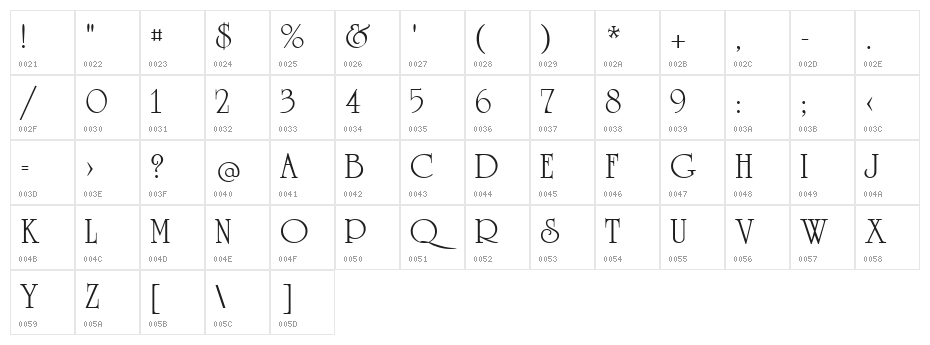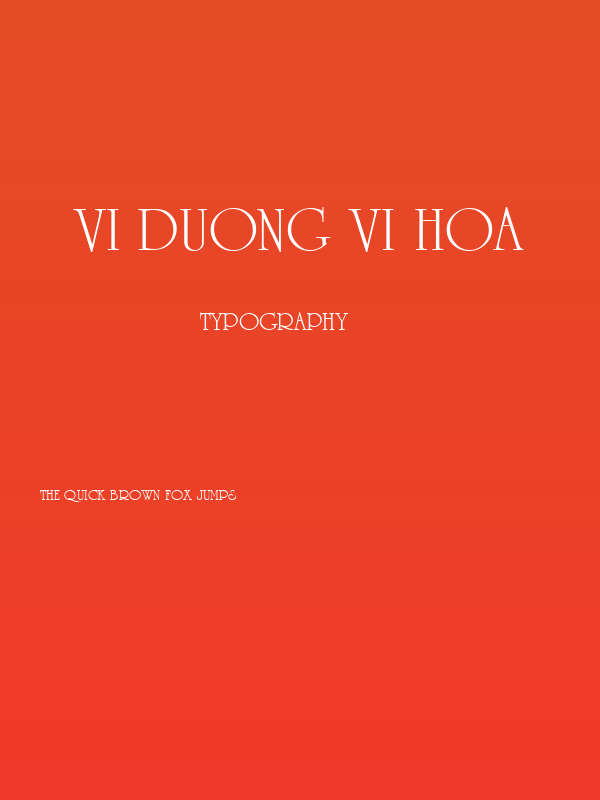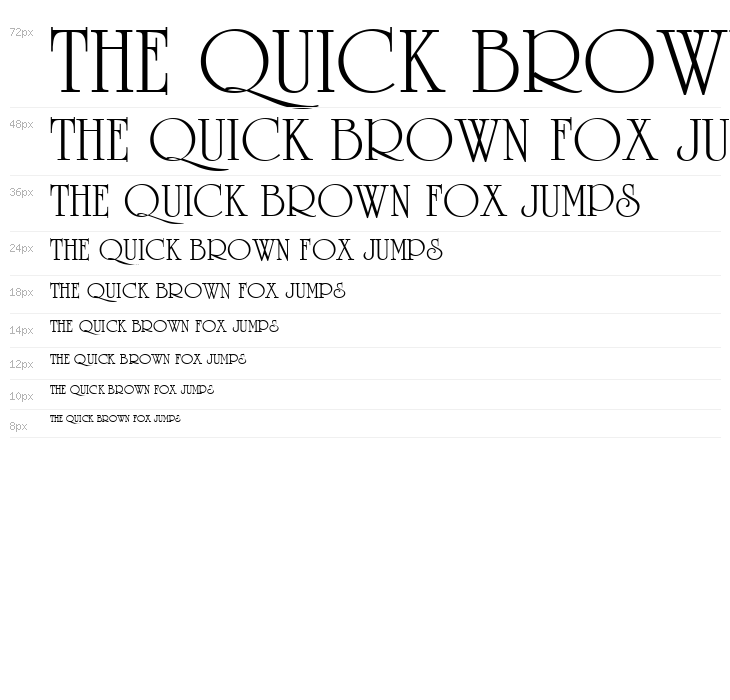
VI Duong Vi Hoa Font
VI Duong Vi Hoa Description
This font features a classic serif style with elegant, sweeping curves and a refined appearance. The uppercase letters are characterized by their tall, slender forms and distinctive serifs, which add a touch of sophistication. The lowercase letters maintain a consistent style, with smooth transitions and a balanced structure. The numerals are well-proportioned, complementing the overall aesthetic. Special characters are thoughtfully designed, enhancing the font's versatility. The font's graceful lines and subtle details make it suitable for a variety of applications, from formal invitations to editorial design.
| Proposed Projects | Ideal for wedding invitations, luxury branding, editorial layouts, and high-end packaging. |